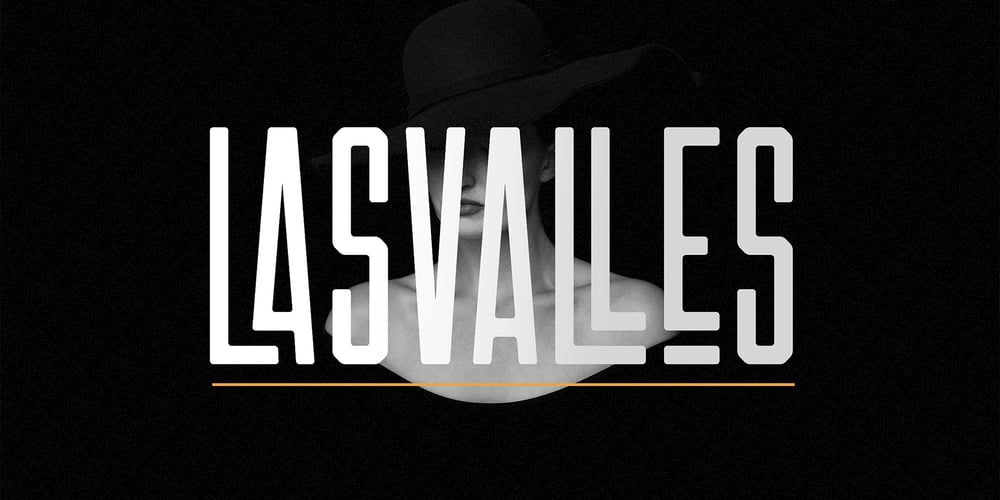
LAS VALLES Font Family was designed by Kurt Harahap and published by Kaligra.co. LAS VALLES contains 4 styles and family package options. Introducing Las Valles a tall Ultra condensed sans serif font coming in 4 styles. If you are looking for Strong letters with a ton of unique Ligatures and style to choose, Las Valles is the perfect fit. This fonts is perfect for headlines, quotes, Logo, Web, magazine covers, editorial design, print posters, signage, window shop design, and much more.HOW TO ACCESS ALTERNATE CHARACTERS & LIGATURESOpen glyphs panel: In Adobe Photoshop go to Window – glyphs In Adobe Illustrator go to Type – glyphs